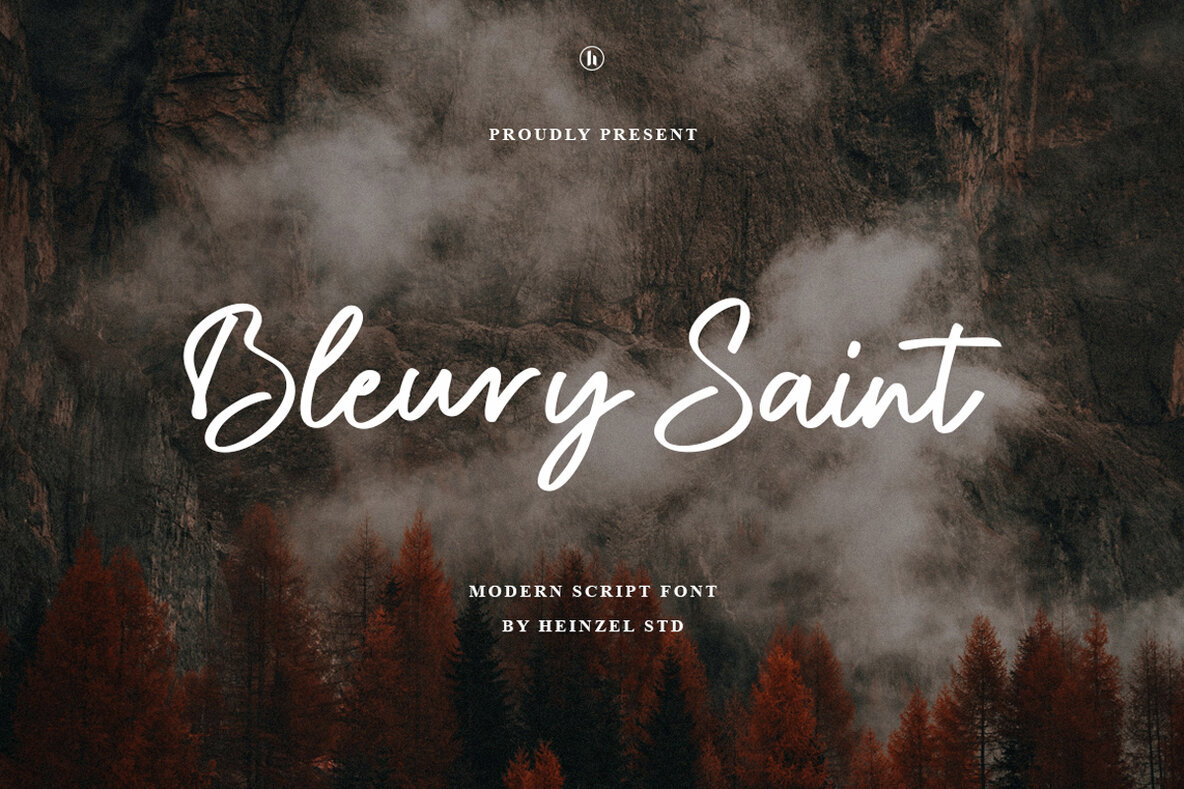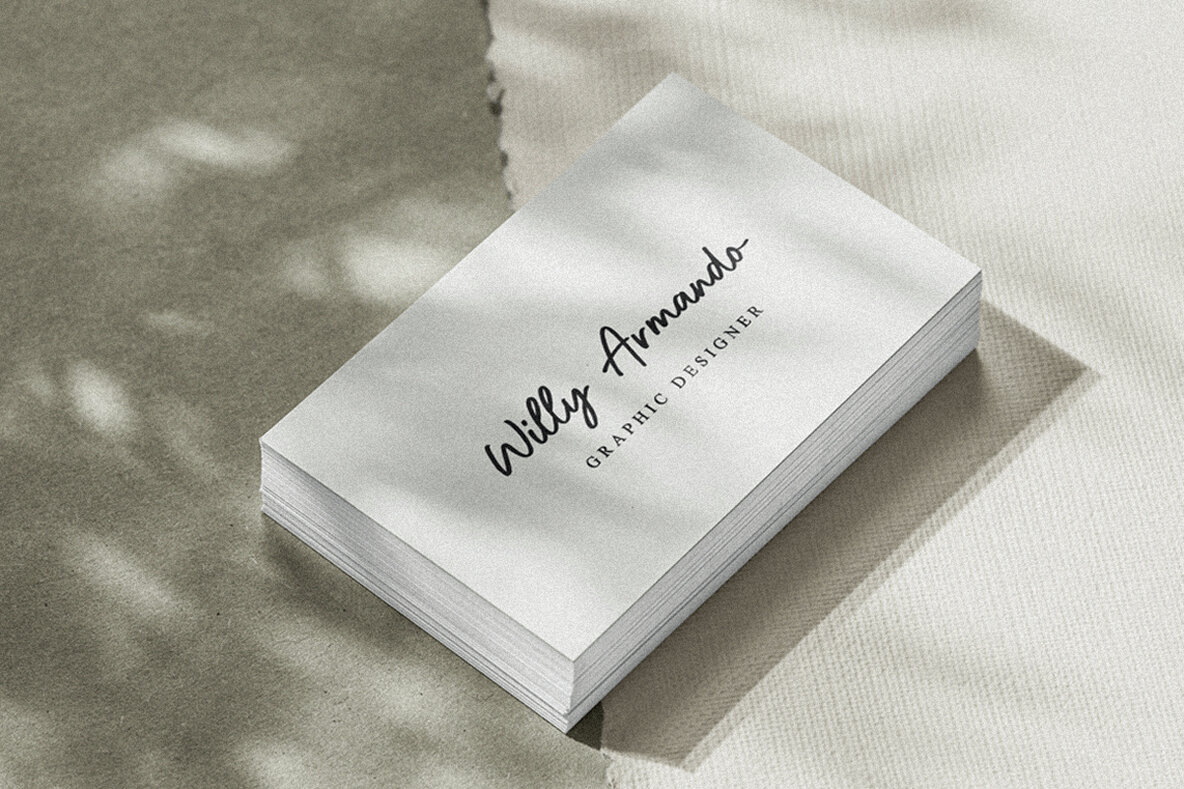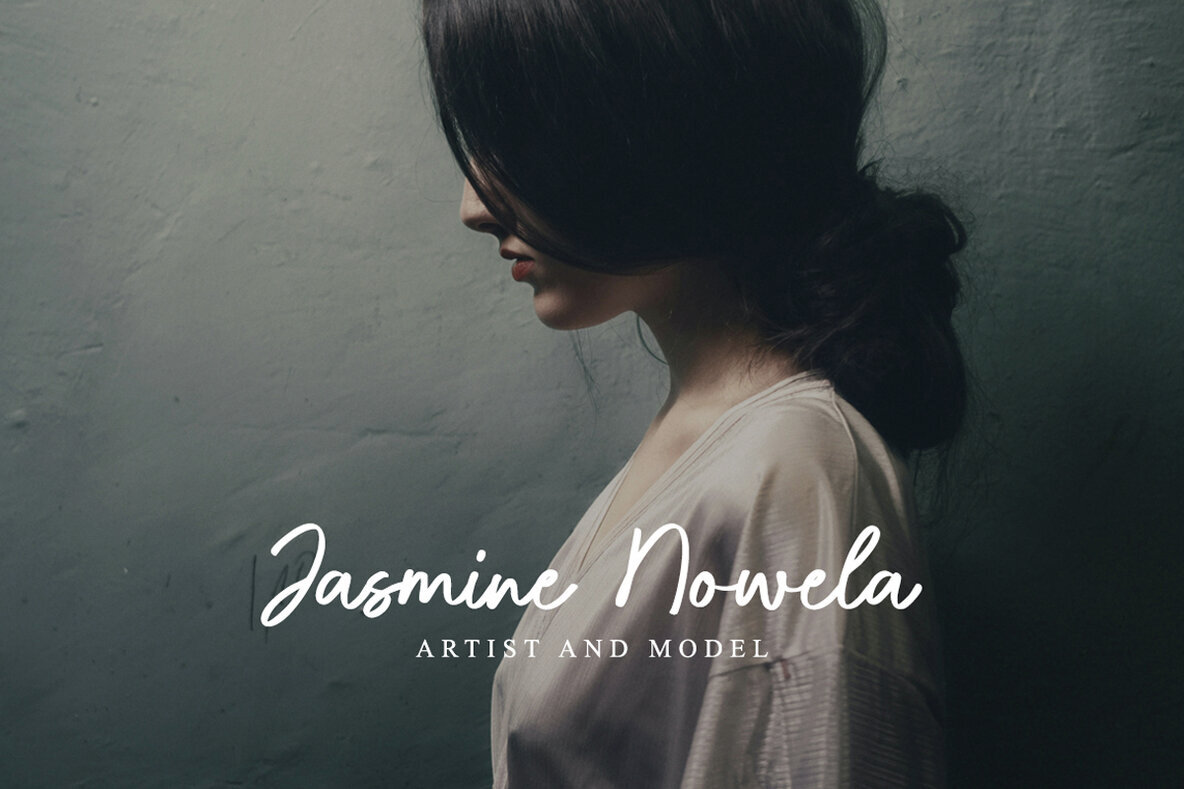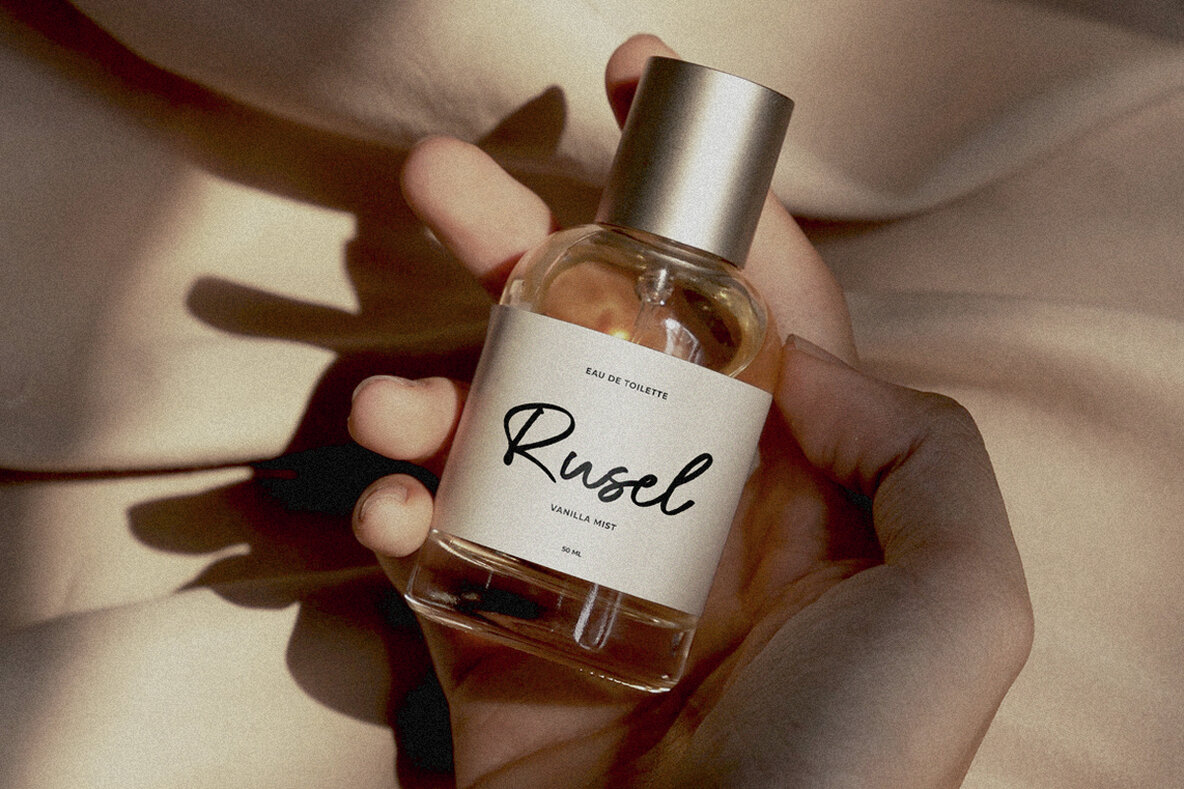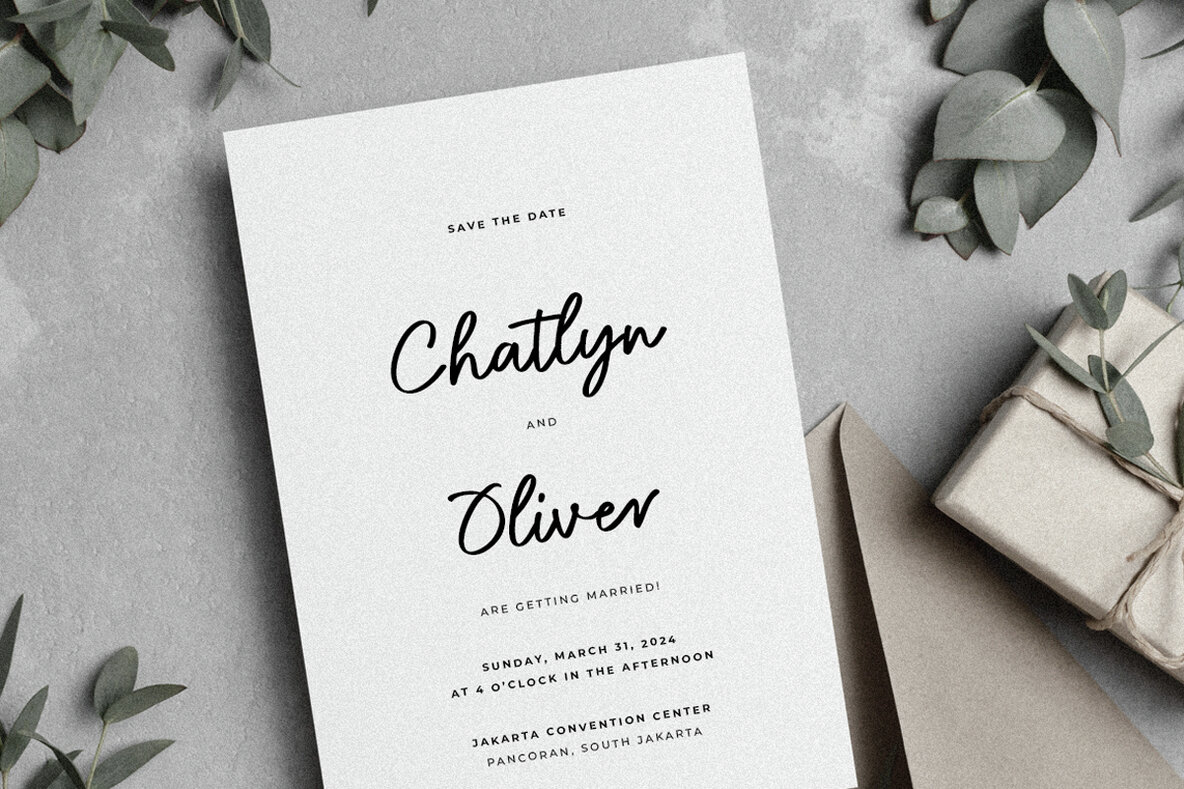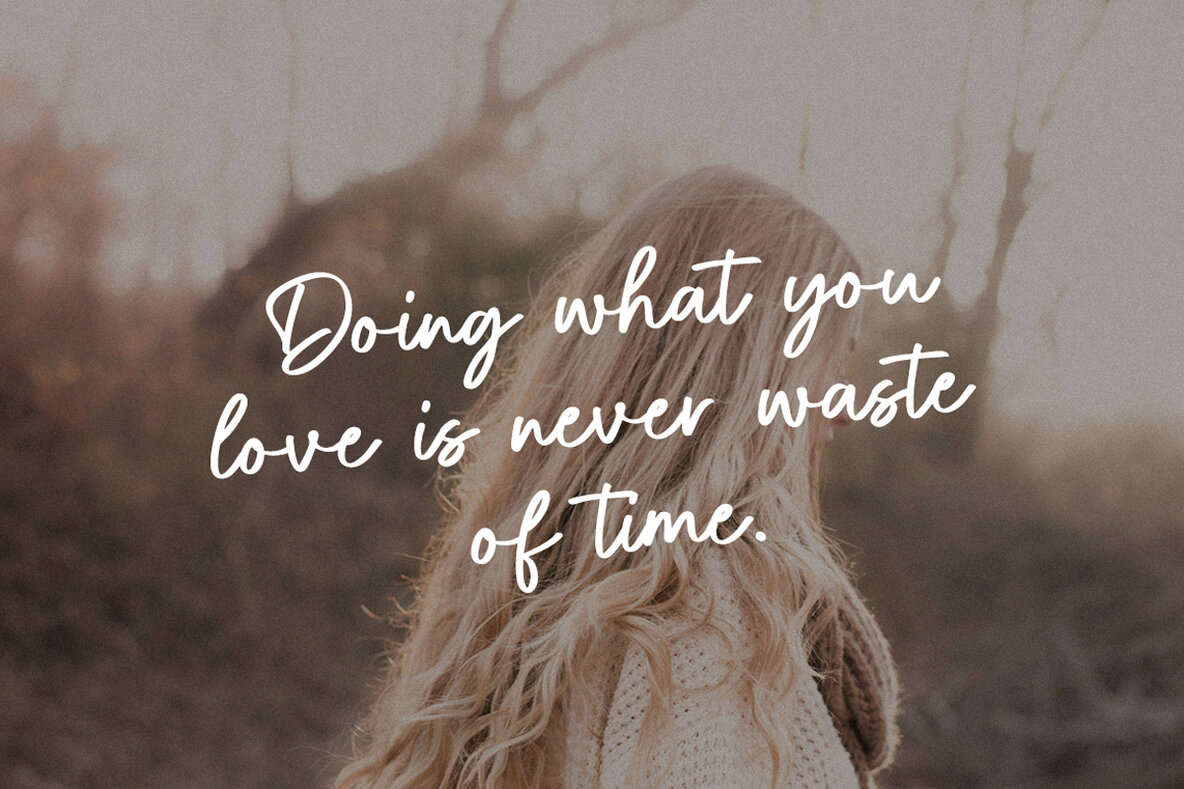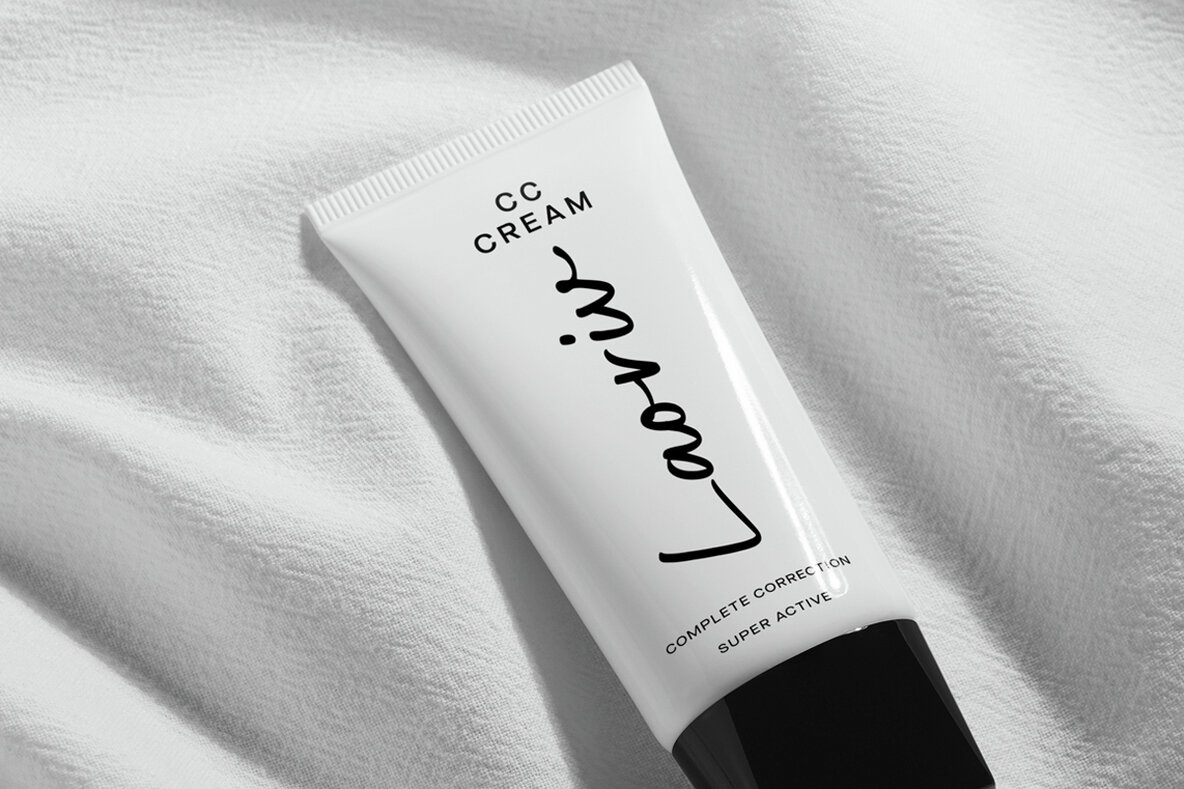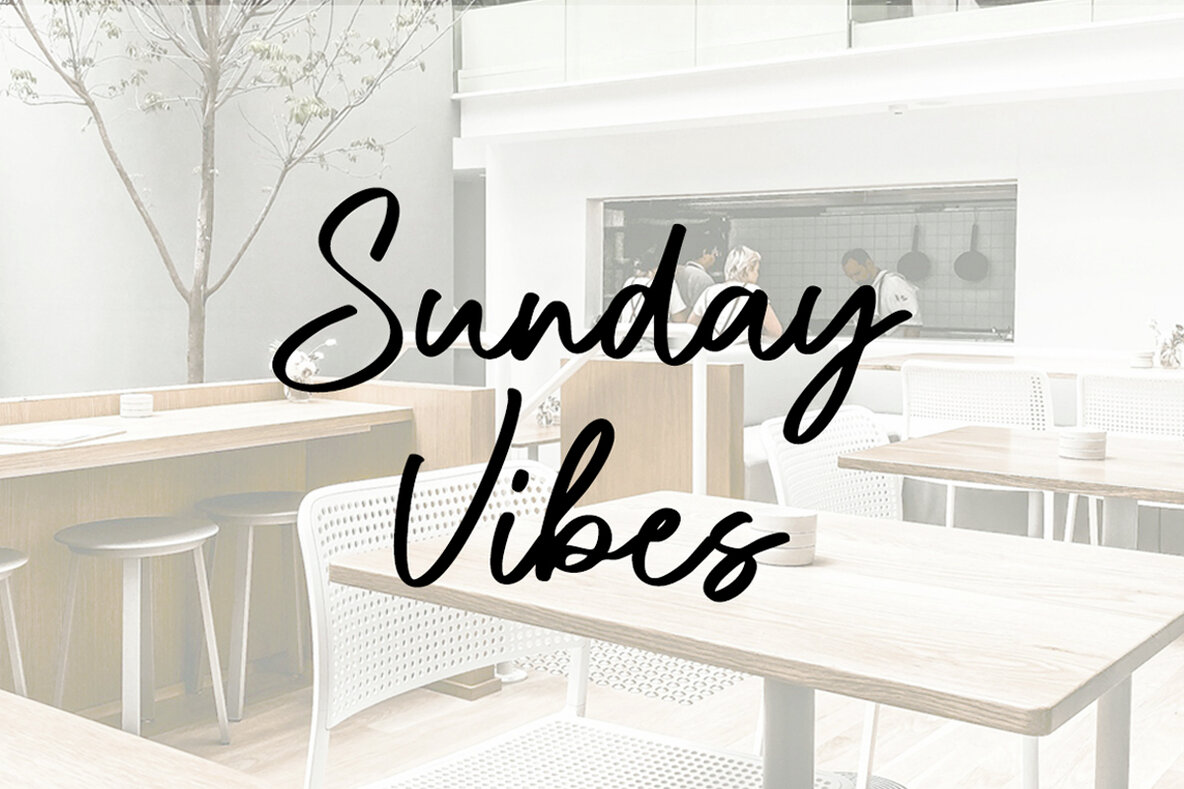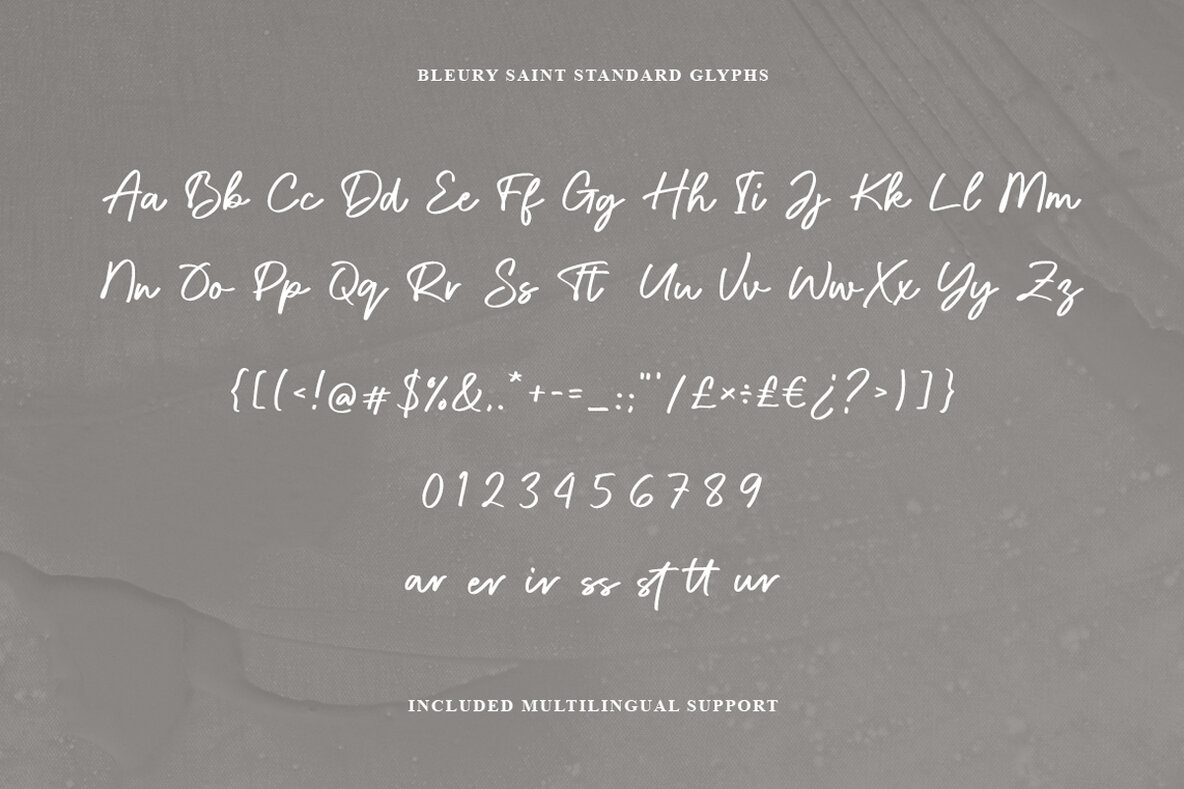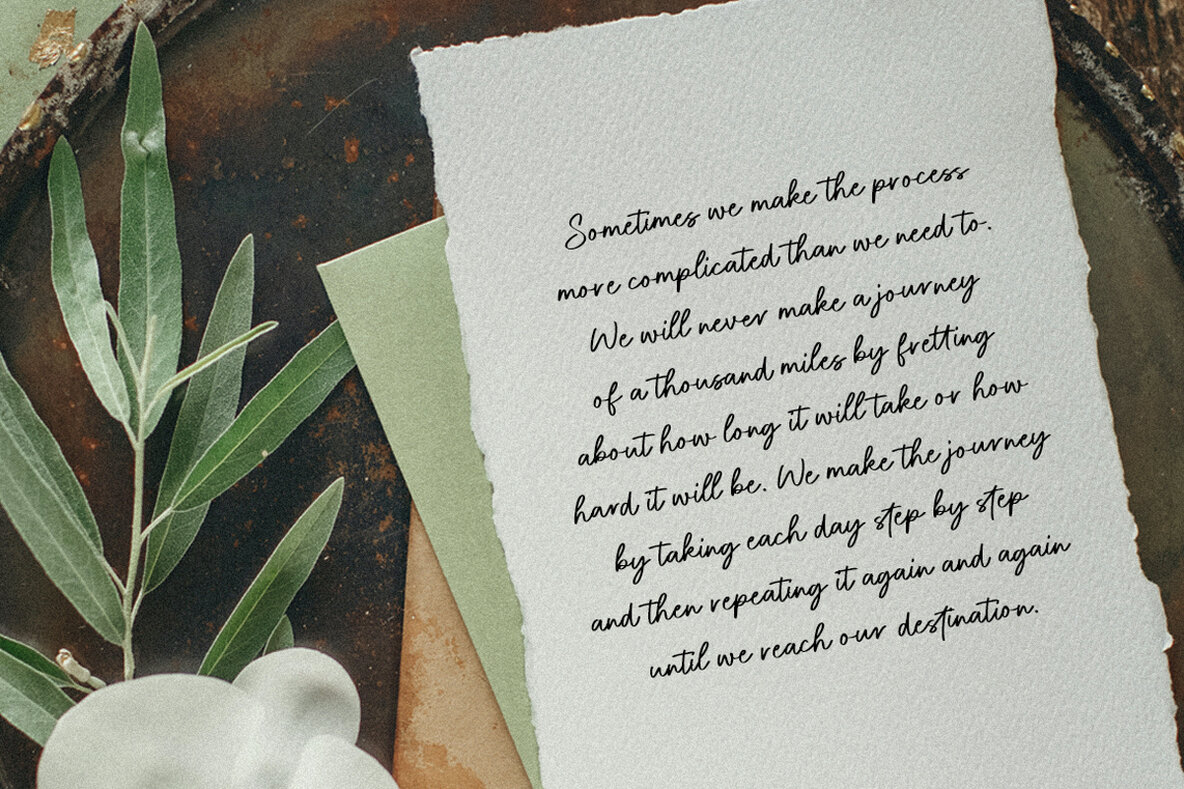
Bleury Saint Font
Bleury Saint Regular
Bleury Saint emerges as a contemporary handwriting choice aimed at enhancing visual creativity. Its clean lines and sleek aesthetic offer a refined touch, perfect for branding, watermarking, web design, logos, and social media posts. This font captures the essence of your creative journey through captivating typography.Bleury Saint: A Handwriting Font for Visual Artistry